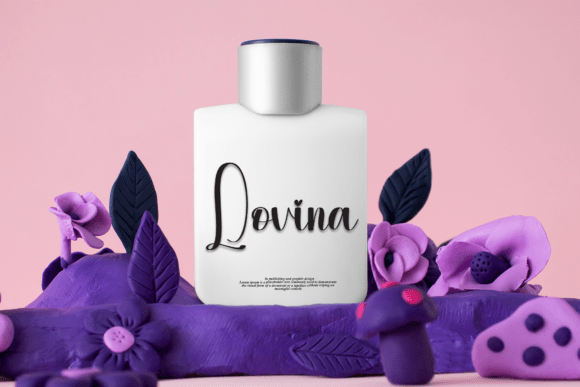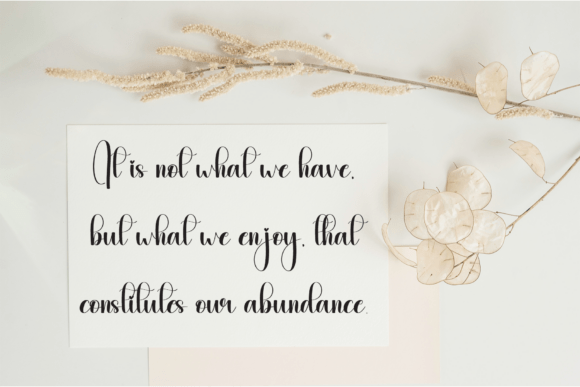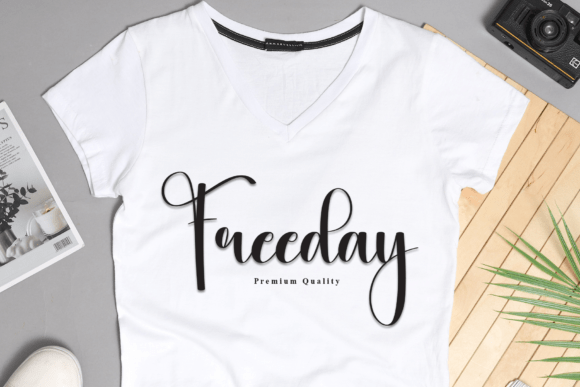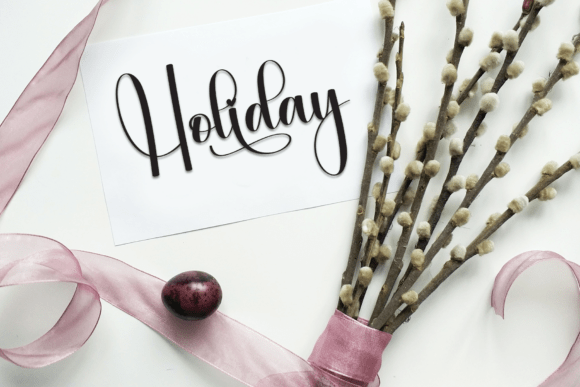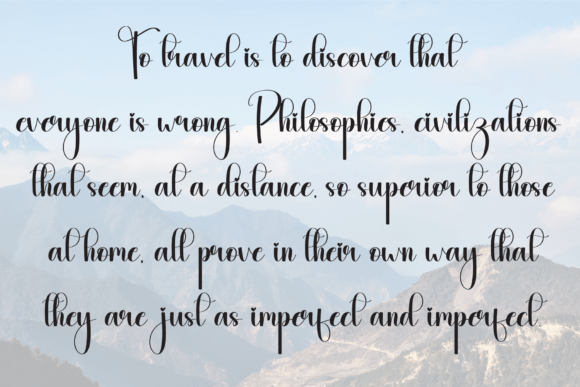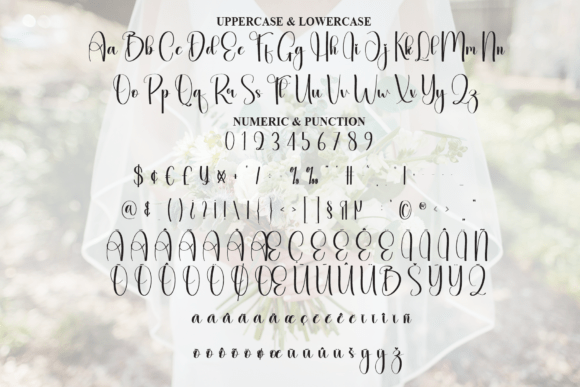
Bride Font: Add a Touch of Whimsy to Your Designs
Are you looking for a font that can add a dash of fun and personality to your designs? Look no further than the Bride Font, a charming handwritten display font that is perfect for a variety of creative projects. In this article, we’ll take a closer look at the Bride Font, its features, and how you can use it to create memorable and engaging designs.
What is Bride Font?
The Bride Font is a beautiful handwritten display font that is designed to bring a touch of whimsy and amiability to your designs. With its unique blend of sweetness and friendliness, this font is perfect for designers and crafters who want to add a personal touch to their work. Whether you’re creating wedding invites, greeting cards, or any other design project, the Bride Font is sure to make your designs stand out.
Key Features of Bride Font
The Bride Font has several key features that make it a great choice for designers and crafters. Some of its notable features include:
- Handwritten display font: The Bride Font is a handwritten display font that is designed to add a personal touch to your designs.
- Whimsical and amiable: This font has a unique blend of whimsy and amiability, making it perfect for designs that require a playful dash of fun.
- Sweet and friendly: The Bride Font has a sweet and friendly tone that is sure to make your designs memorable and engaging.
- Perfect for wedding invites and greeting cards: This font is perfect for personalizing wedding invites, greeting cards, or any design project that requires a touch of elegance and sophistication.
How to Use Bride Font in Your Designs
Using the Bride Font in your designs is easy. Here are a few tips to get you started:
- Wedding Invites: Use the Bride Font to create beautiful and personalized wedding invites that will set the tone for the big day.
- Greeting Cards: Add a touch of whimsy and personality to your greeting cards with the Bride Font.
- Design Projects: Use the Bride Font to add a playful dash of fun to any design project, from brochures to posters.
Benefits of Using Bride Font
There are several benefits to using the Bride Font in your designs. Some of the benefits include:
- Unique and Memorable: The Bride Font is a unique and memorable font that is sure to make your designs stand out.
- Personal Touch: This font adds a personal touch to your designs, making them more engaging and relatable.
- Easy to Read: The Bride Font is easy to read, making it perfect for designs that require a clear and concise message.
Tips for Pairing Bride Font with Other Fonts
Pairing the Bride Font with other fonts can be a great way to add variety and interest to your designs. Here are a few tips for pairing the Bride Font with other fonts:
- Use a contrasting font: Pair the Bride Font with a contrasting font, such as a serif or sans-serif font, to create visual interest.
- Use a similar font: Pair the Bride Font with a similar font, such as another handwritten font, to create a cohesive look.
- Experiment with different font sizes: Experiment with different font sizes to create a visually appealing design.
The Bride Font is a charming handwritten display font that is perfect for designers and crafters who want to add a touch of whimsy and personality to their designs. With its unique blend of sweetness and friendliness, this font is sure to make your designs memorable and engaging. Whether you’re creating wedding invites, greeting cards, or any other design project, the Bride Font is a great choice.